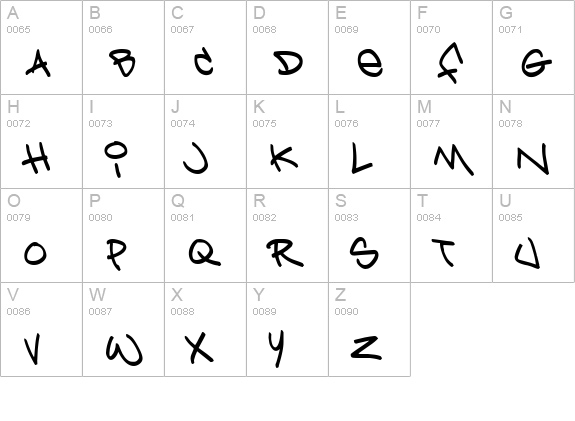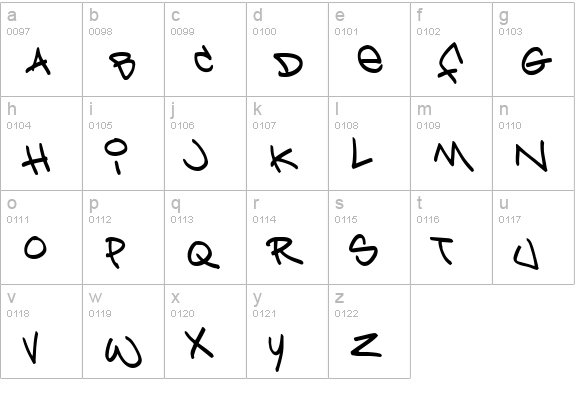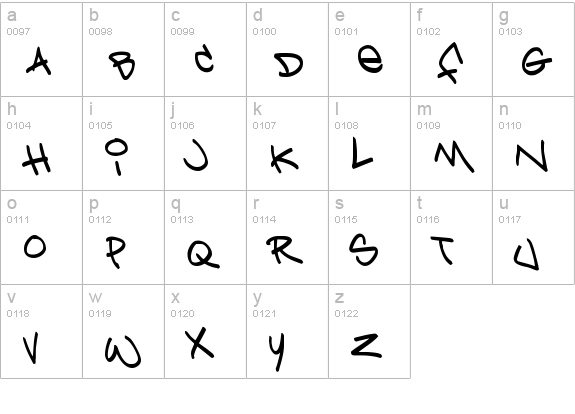
Bring tha noize font is a bold and dynamic typeface that exudes energy and attitude. With its graffiti-inspired style and rugged edges, this font is perfect for making a statement in your designs. Whether you're working on a street art project, a music poster, or a rebellious branding campaign, Bring tha noize font will surely capture attention and convey a sense of urban cool. The best part? Bring tha noize font is completely free to download at FontsMarket.com. Simply head over to the website and grab this edgy font to add a touch of boldness to your creative projects. With its distinctive look and versatile design, Bring tha noize font is a must-have for anyone looking to make a bold impact in their designs. Download it now and let your creativity run wild with this exciting and expressive typeface.